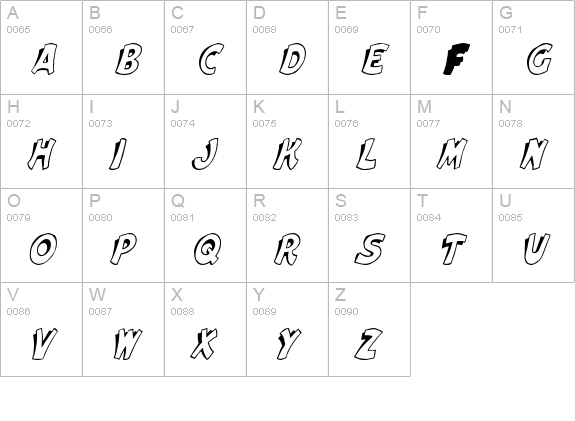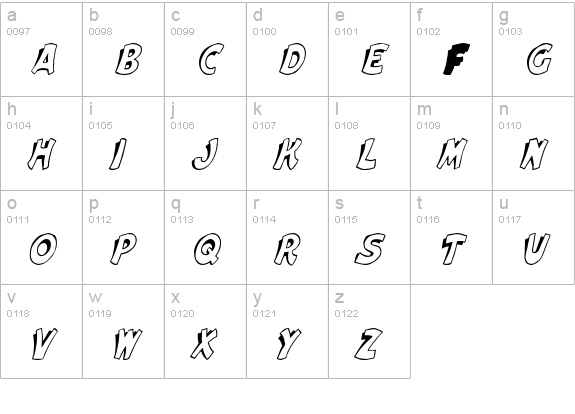
Elwood Italic is a distinctive, italic variant in the Elwood typeface family \xE2\x80\x94 well suited to design and typography projects.
Elwood Italic font is a stylish and elegant typeface that exudes sophistication and charm. Its sleek and flowing lines give any text a touch of class and flair. Whether used for invitations, branding, or editorial design, Elwood Italic adds a refined touch to any project. What makes Elwood Italic even more appealing is that it is available for free download at FontsMarket.com. This means that you can elevate your designs without having to spend a penny. Don't miss out on the opportunity to enhance your creations with this beautiful and versatile font. Download Elwood Italic today and take your design projects to the next level!